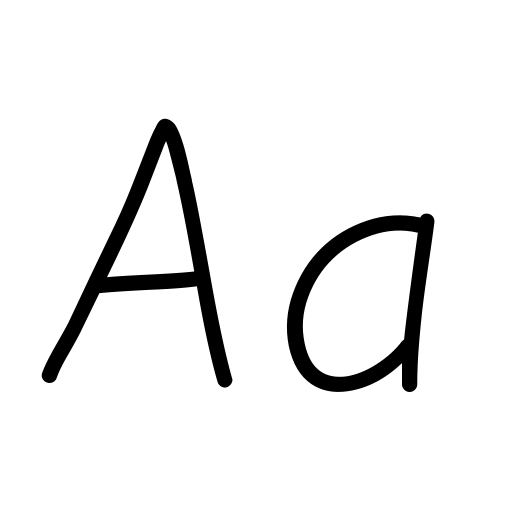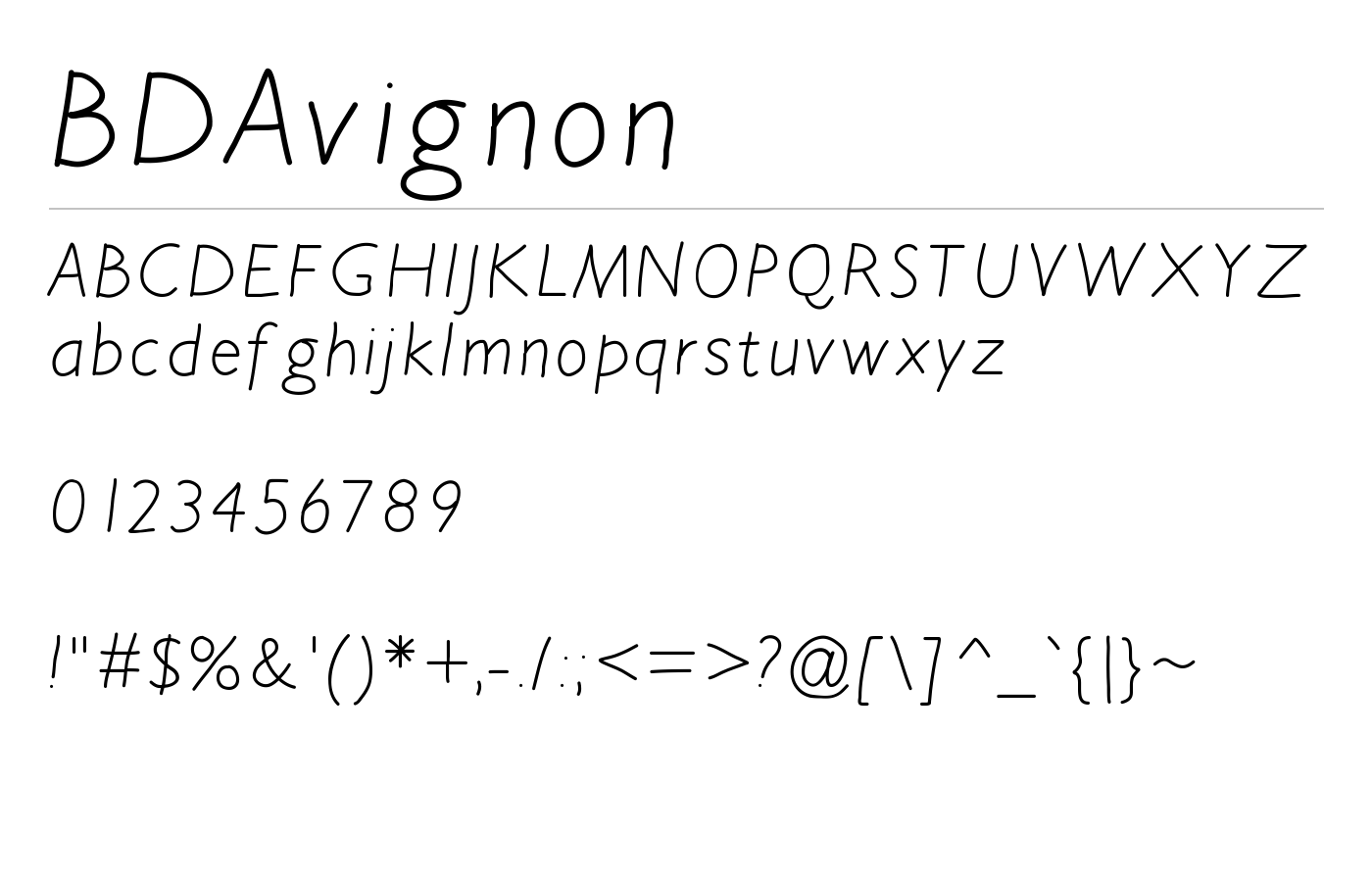
BDAvignon is a slender, playful sans serif font with a hand-drawn feel, characterized by its casual, slightly irregular letterforms and low contrast strokes. The font’s light weight and tall x-height give it an airy, approachable appearance, making it ideal for informal branding, creative projects, and friendly editorial use. Its unique quirky details lend warmth and personality, perfect for designs seeking a personal, human touch.
BDAvignon Font
About BDAvignon Font